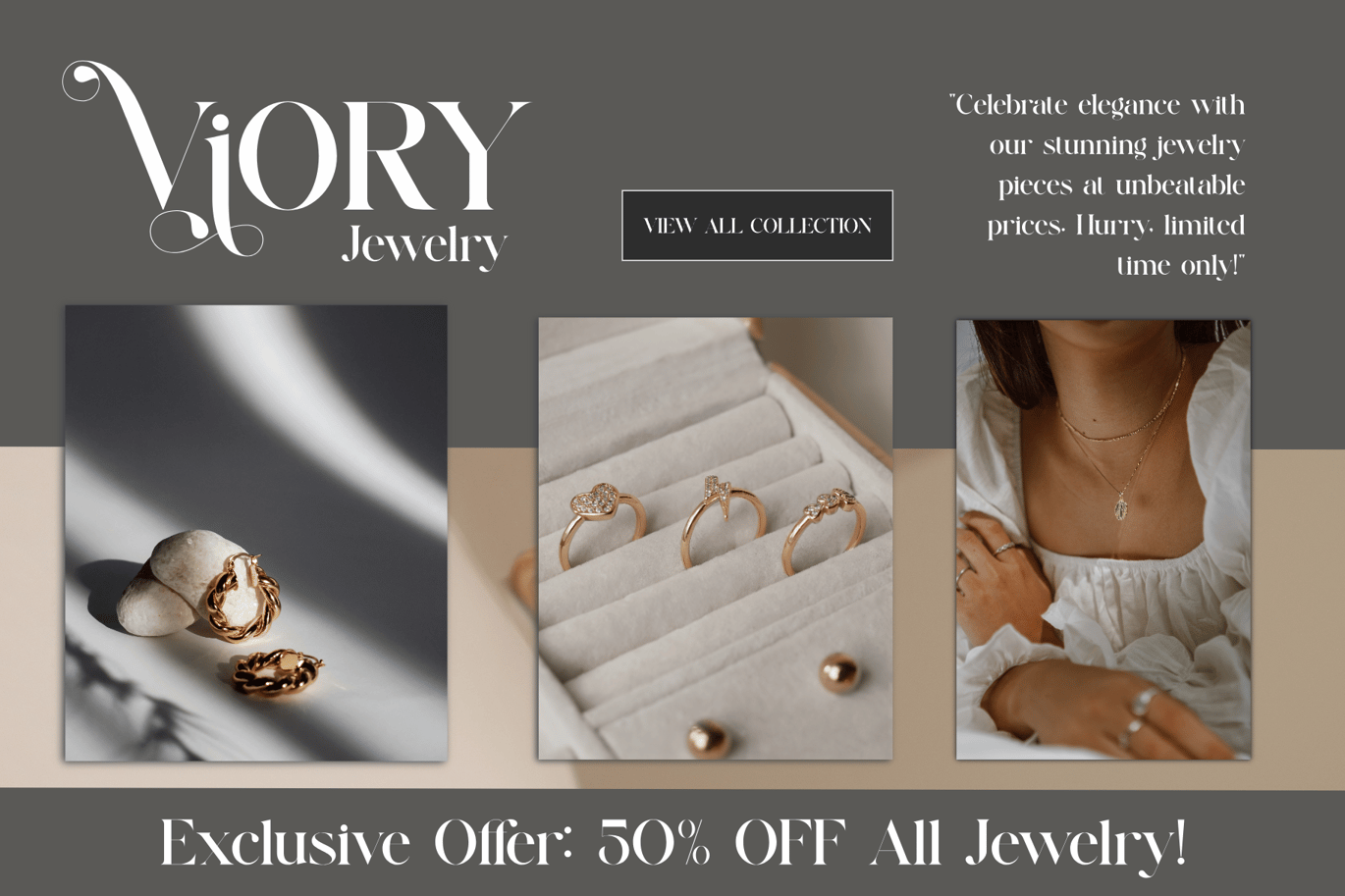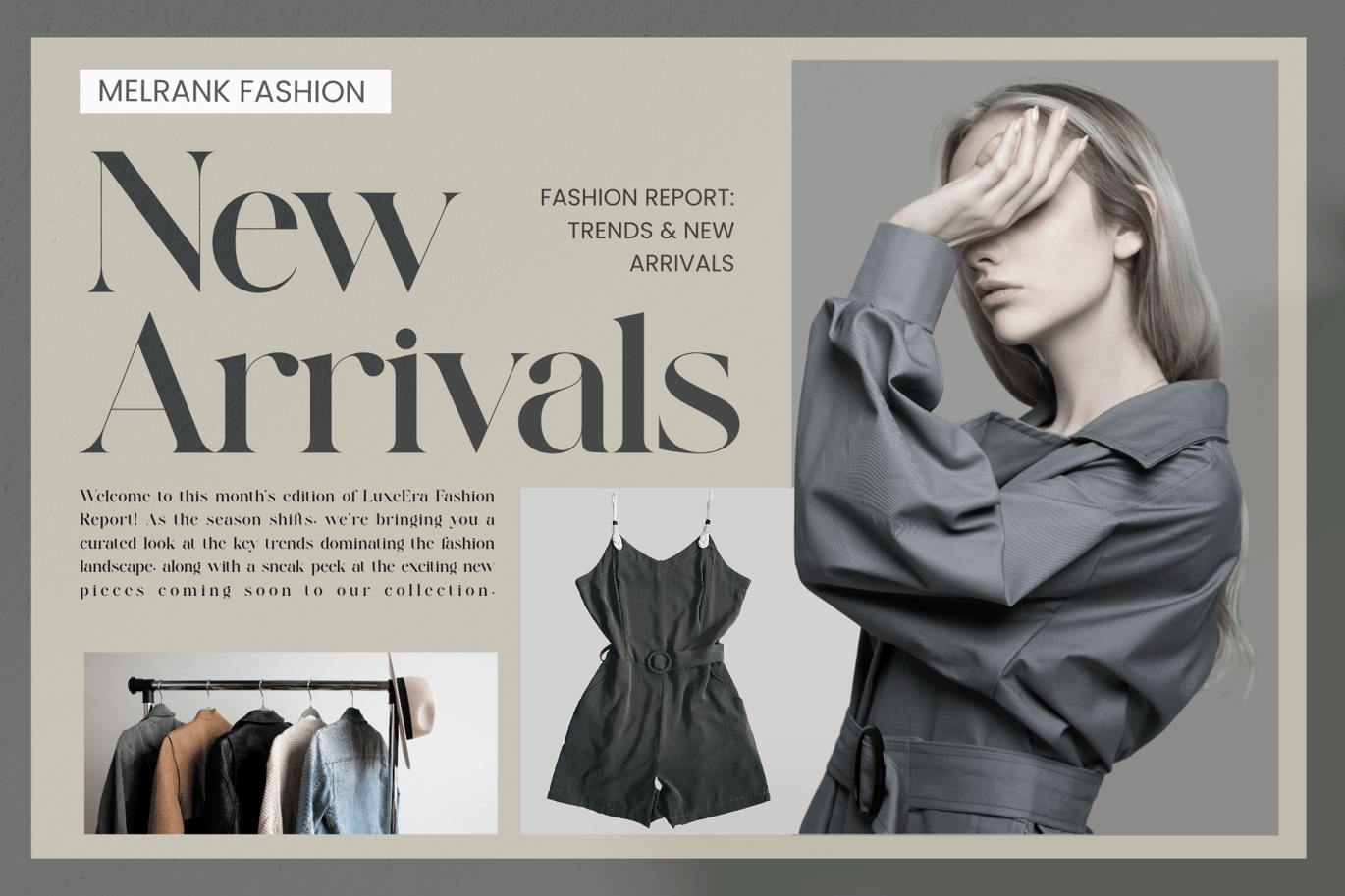
Melrank is a modern serif with a romantic streak. Designer Alfin Ridhowi of Alfinart started from a classic serif structure and softened it with rounded curves and graceful details, then added bold ligatures that link letter pairs into single, decorative shapes. The result reads clearly but feels hand-finished, a bit like the lettering on a florist’s shopfront or a boutique perfume box.
Melrank is a single-style family. It includes standard Latin glyphs with international accents, and its ligatures and extra characters are PUA-encoded. That means you can reach them from a glyph or character map, even in apps that don’t support OpenType features.
Best uses for Melrank
- Florist, beauty and skincare branding
- Fashion labels, boutique logos and lookbooks
- Wedding invitations, save-the-dates and menus
- Magazine headlines with an elegant tone
- Candle, cosmetics and gift packaging
Let Melrank be the decorative voice and keep the rest simple. Jost, a clean geometric sans, sets off the curves nicely in subheads and labels. For body text, Lato stays light and readable. If you want a second serif for long paragraphs, EB Garamond adds a quiet, classic texture without competing.
Melrank Modern Ligature Serif Font